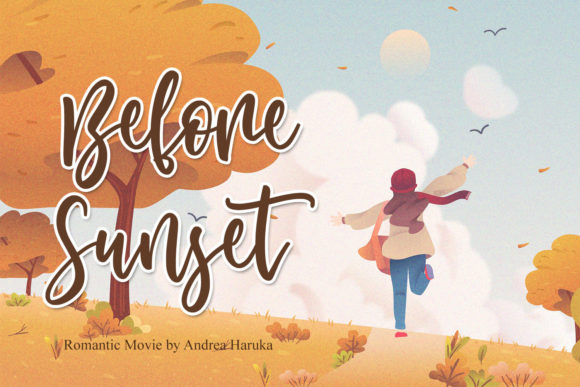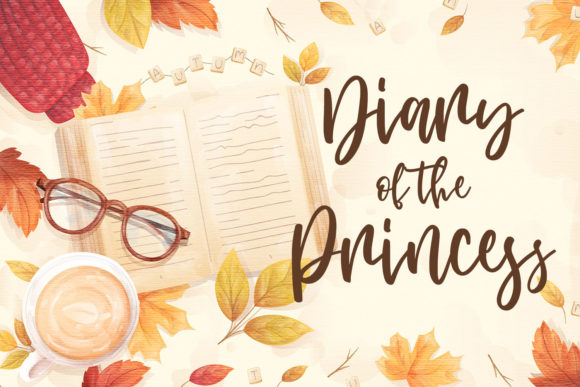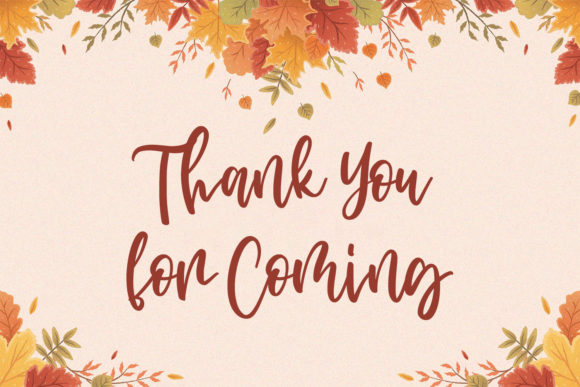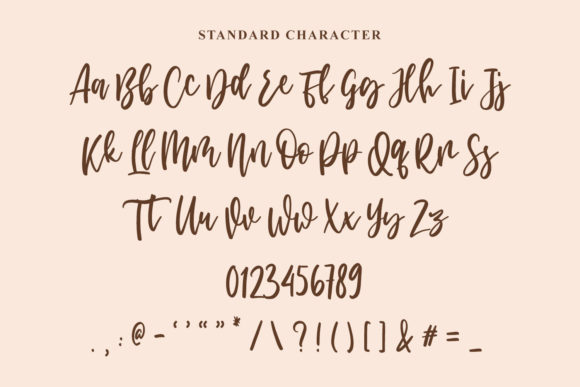
Balency Hanimasa Font
About Balency Hanimasa Font
Balency Hanimasa is a sweet and a bit quirky script font. Fall in love with its cute and joyful style and use it to create gorgeous wedding invitations, beautiful stationary art, eye-catching social media posts, and much more!